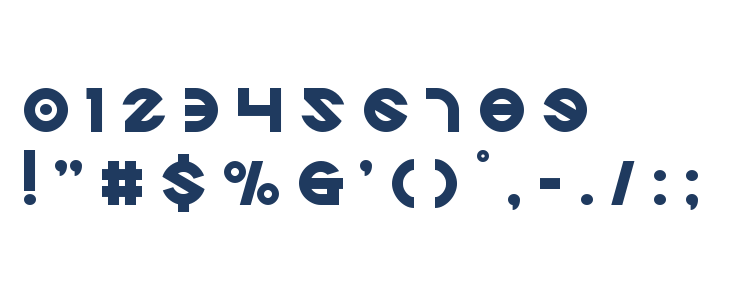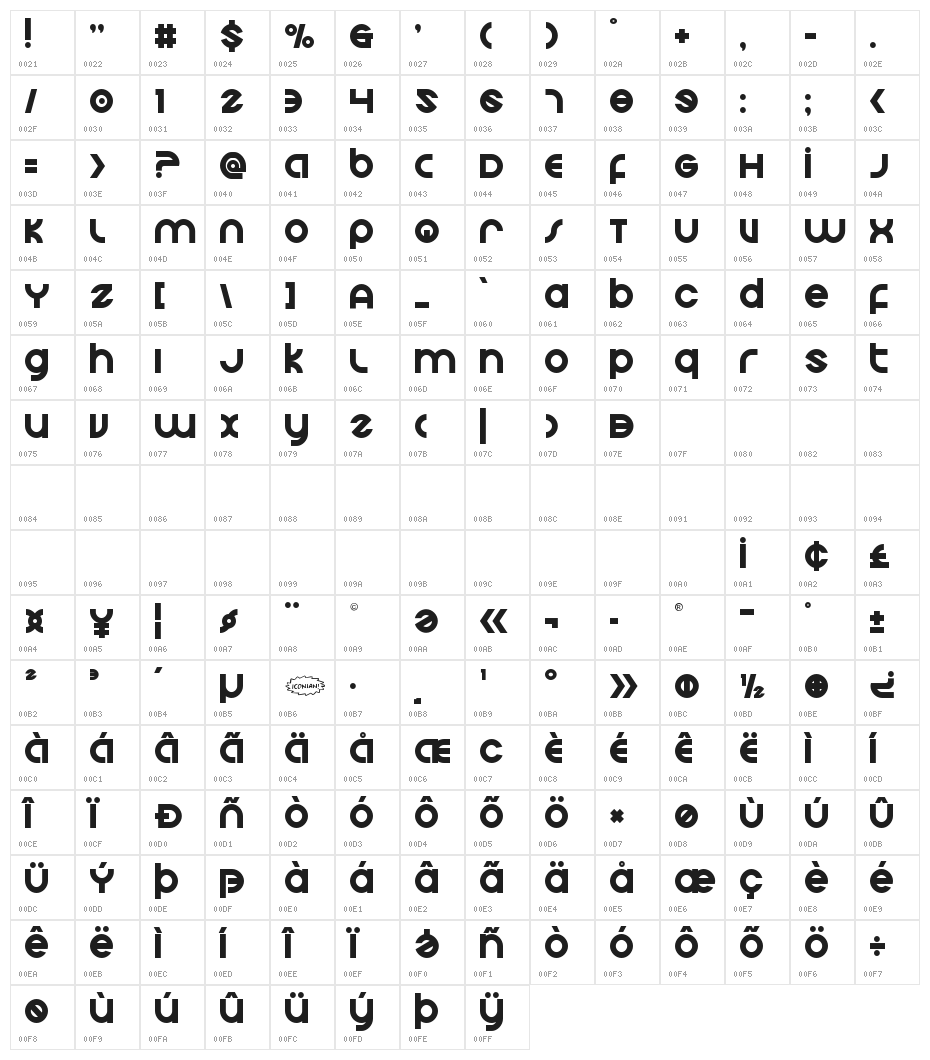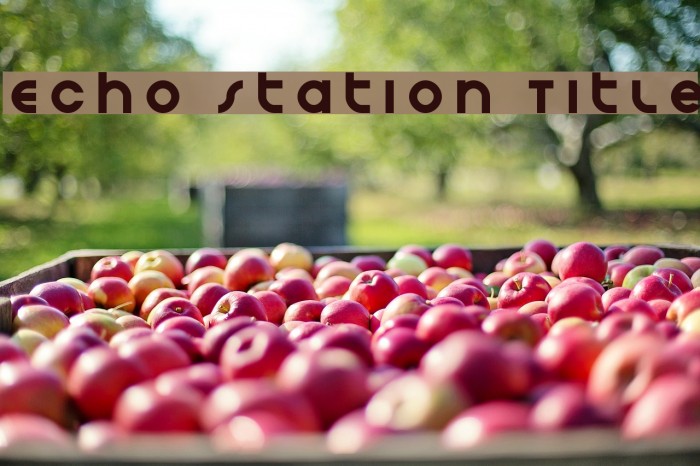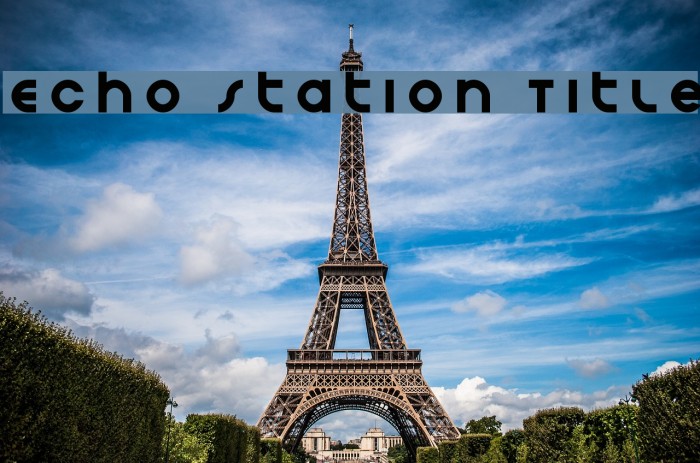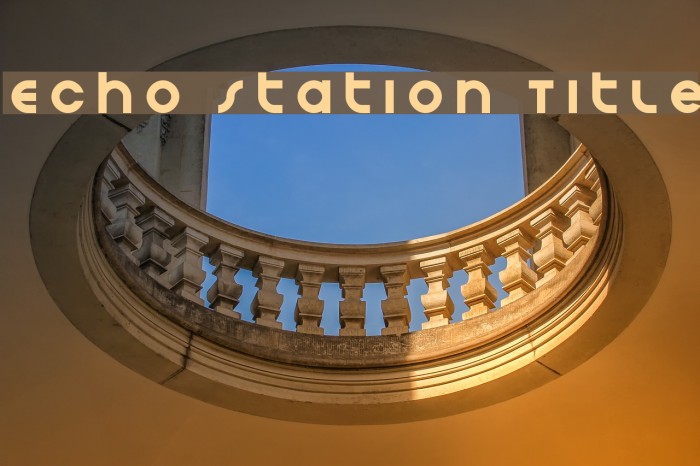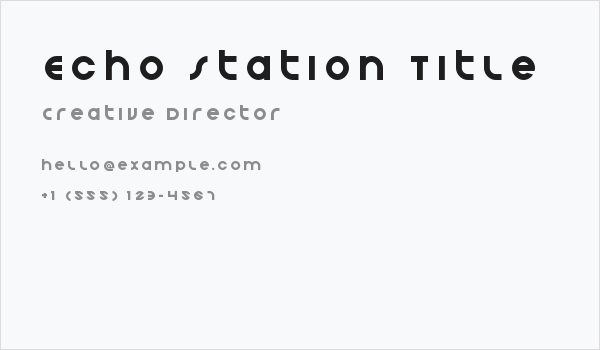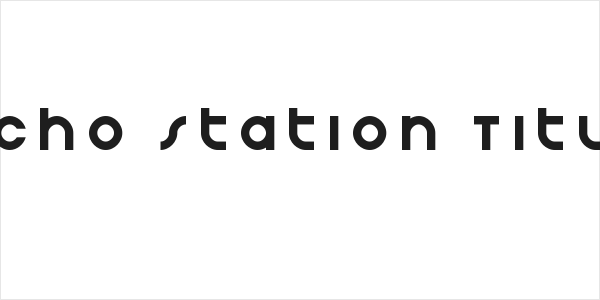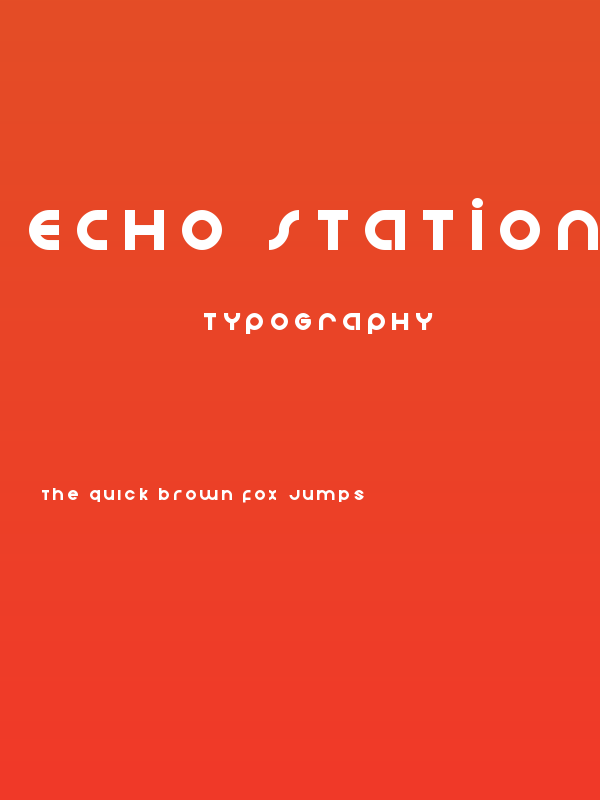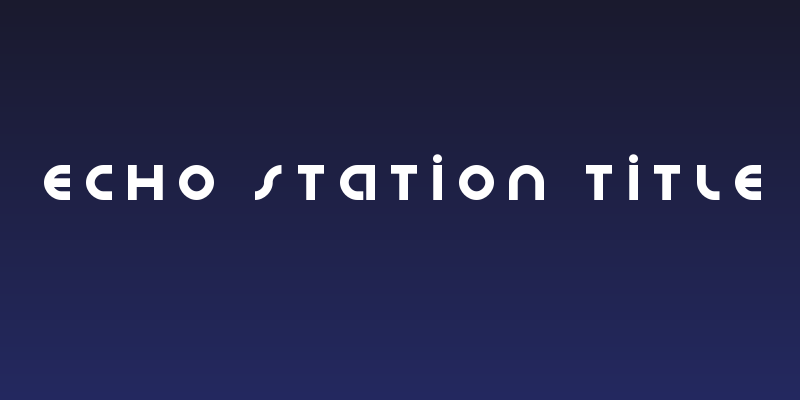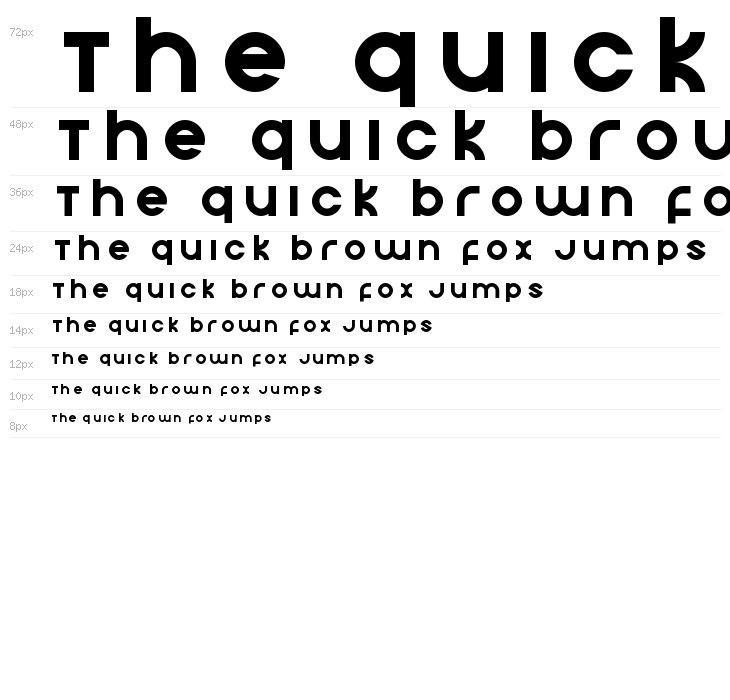
Echo Station Title Font
Echo Station Title Description
This font features a modern and geometric design with a futuristic appeal. The characters are constructed with bold, clean lines and rounded edges, creating a sense of uniformity and balance. The uppercase and lowercase letters share a similar structure, enhancing the cohesive look. Numbers and special characters are designed to match the overall aesthetic, maintaining the geometric and bold style. The font's unique character shapes, such as the open counters and circular forms, contribute to its distinctive appearance.
| Use Case | Headlines, Logos, Digital interfaces |
| Proposed Projects | Ideal for tech-related branding, futuristic designs, digital interfaces, and modern advertising. |